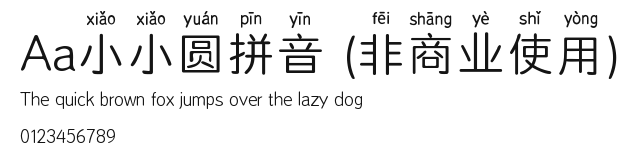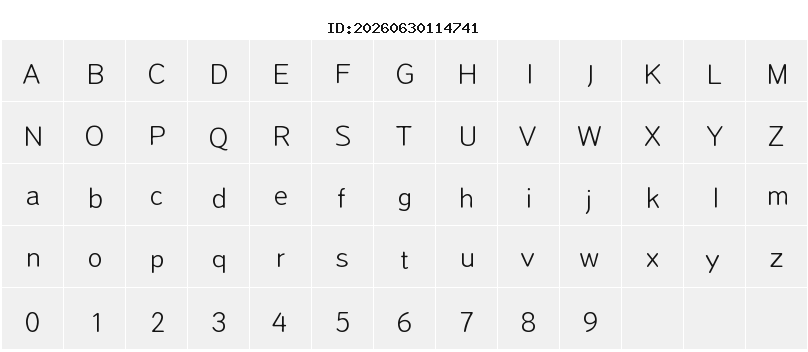
Aa小小圆拼音 (非商业使用) Preview
• Font Name: Aa小小圆拼音 (非商业使用)
• Font Style: 常规
• Font ID: 1.000;Aa;AaXiaoxiaoyuanpinyin (Non-Commercial Use);2018
• Full Font Name: Aa小小圆拼音 (非商业使用)
• PostScript Name: AaXiaoxiaoyuanpinyin(Non-CommercialUse)
• Character Count: 12062
• Designer: Aa
• Manufacturer: 翰美互通(厦门)科技有限公司
• Description: AaXiaoxiaoyuanpinyin (Non-Commercial Use) is a fantastic font with excellent features designed for user interfaces and electronic communications.
About Aa小小圆拼音 (非商业使用).ttf
Aa小小圆拼音 (非商业使用).ttf is a modern, elegant sans-serif font designed for ultimate readability and visual harmony. Perfect for branding, headlines, web design, and print materials.